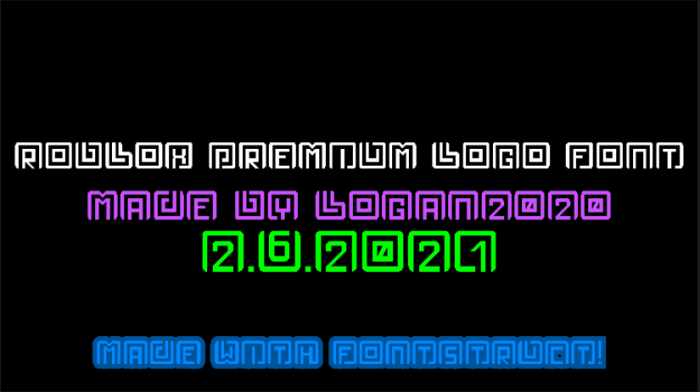
• this fontstruction is speaking the language of roblox premium!!!! :o
I CANT UNSEE PREMIUM BUT i love it
Roblox Plus has replaced premium on April 30, 2026. The icon is roughly the same, but hexagonal outside, and it connects to the bottom of the P